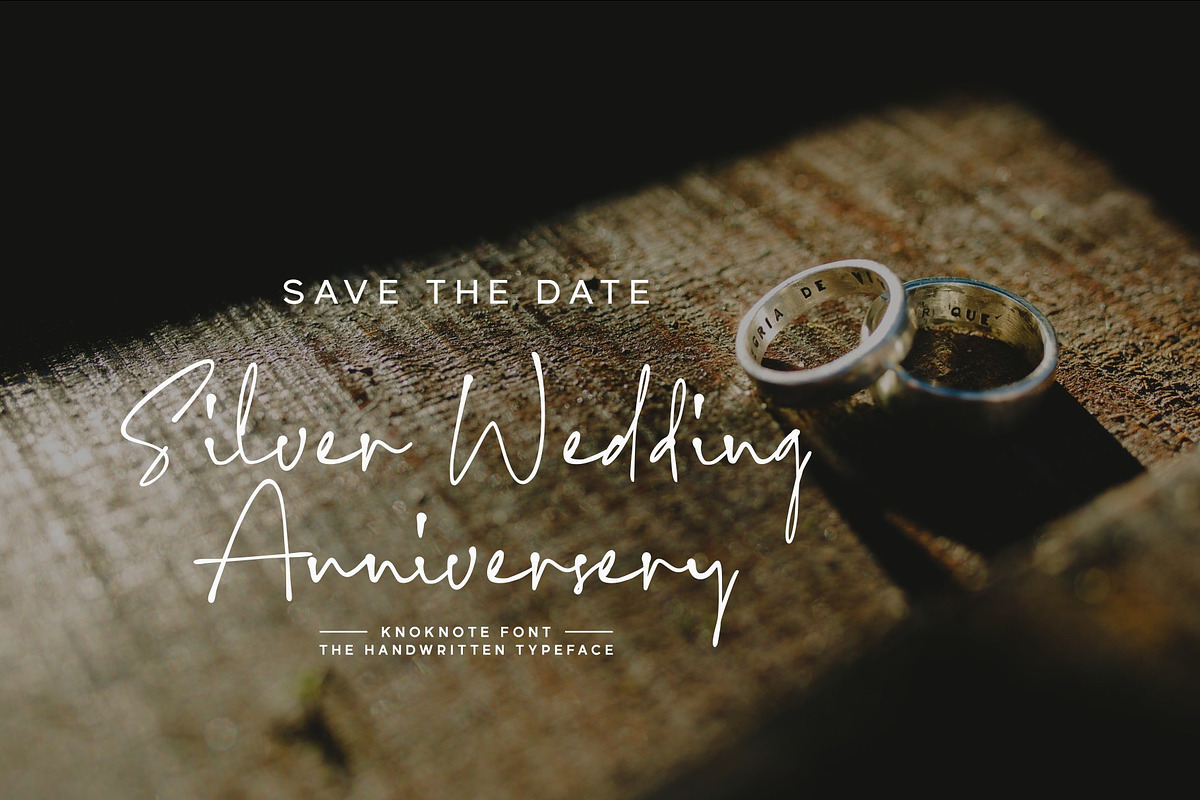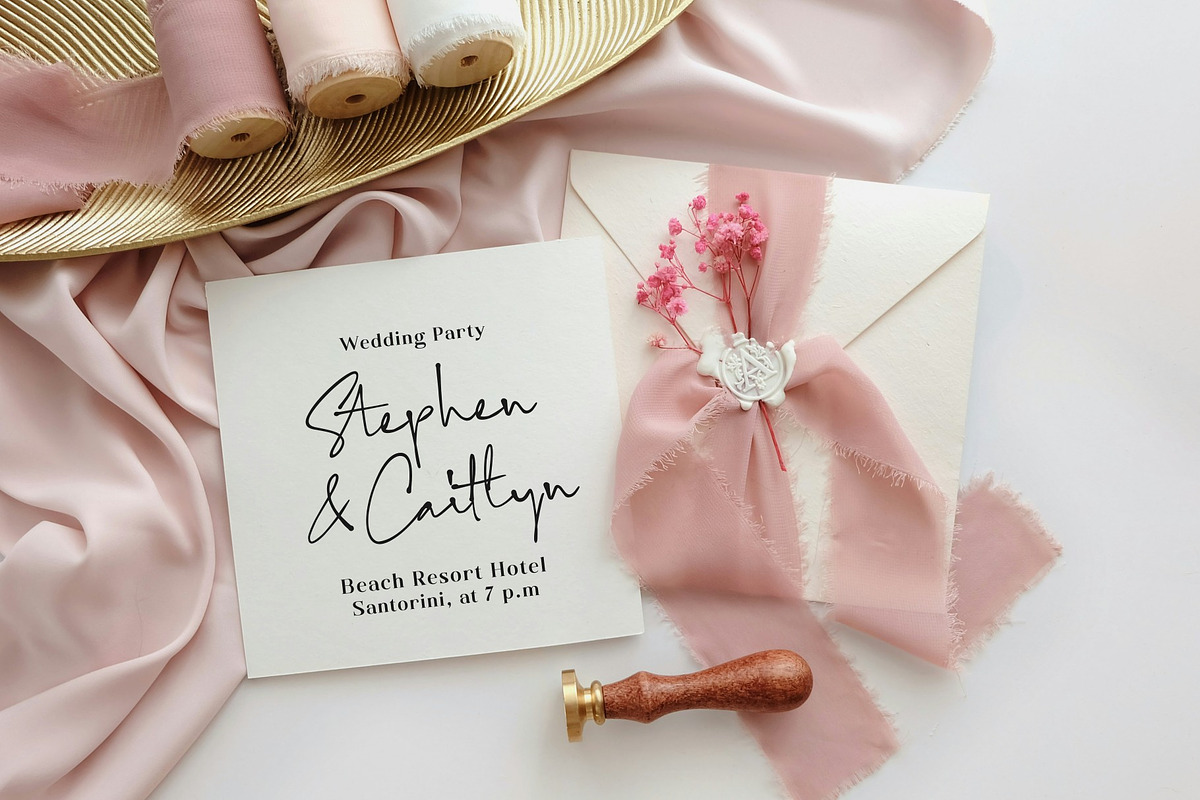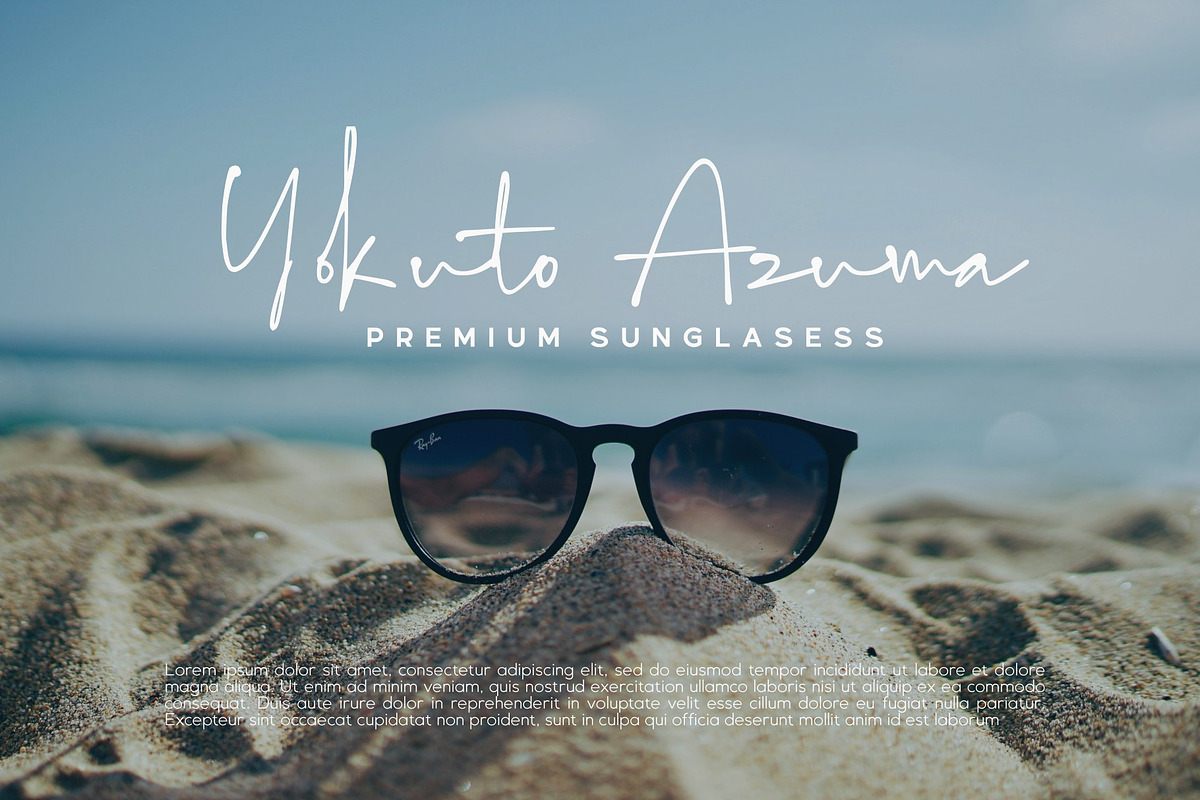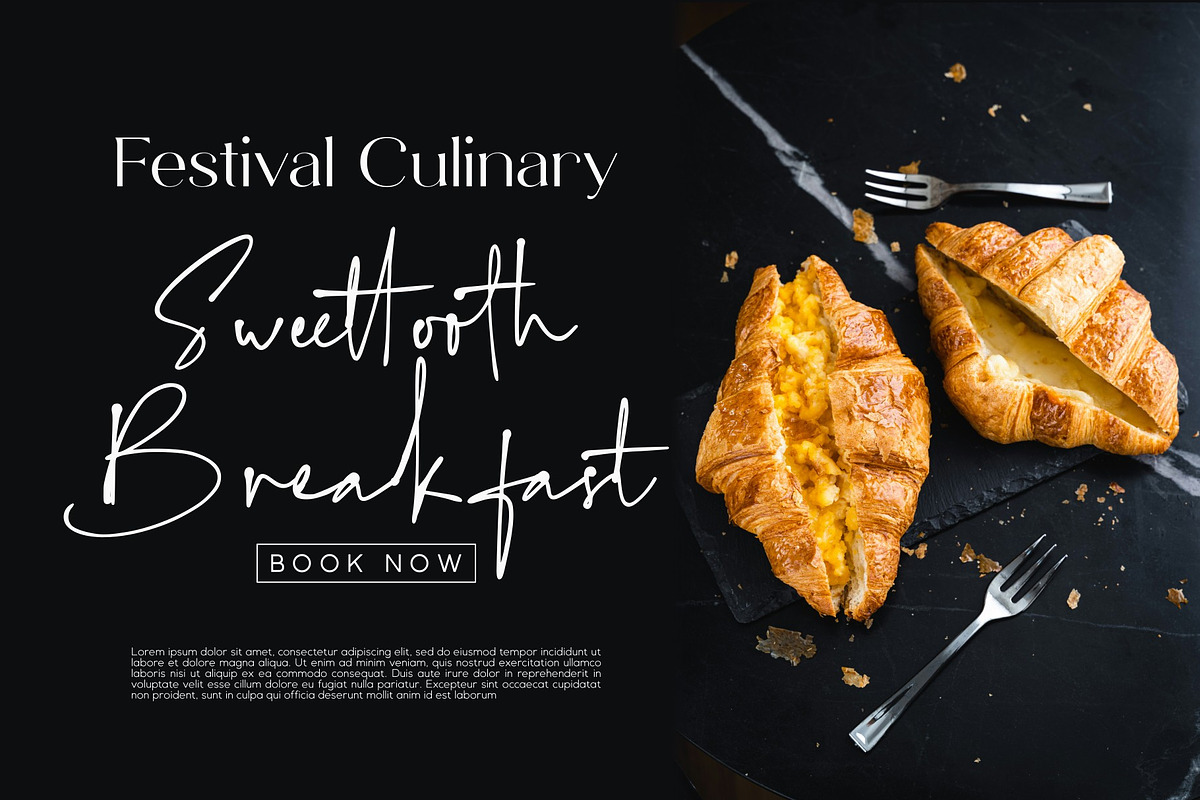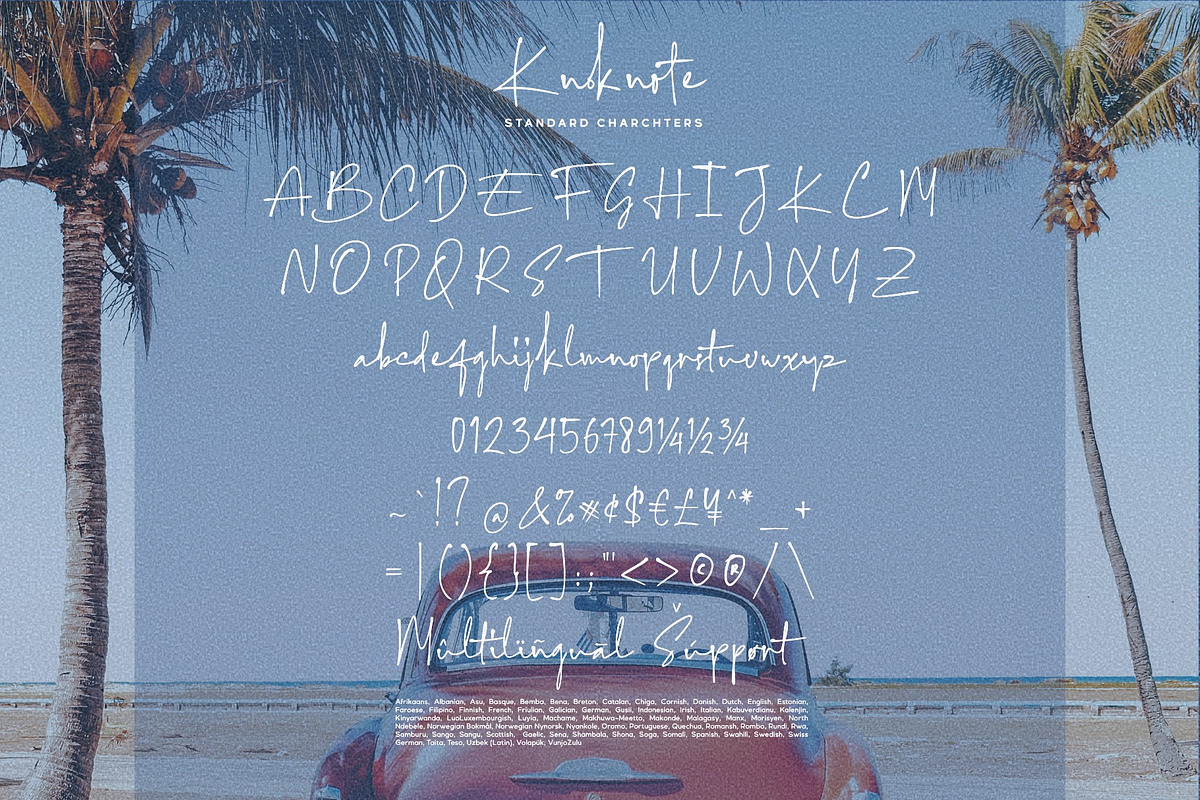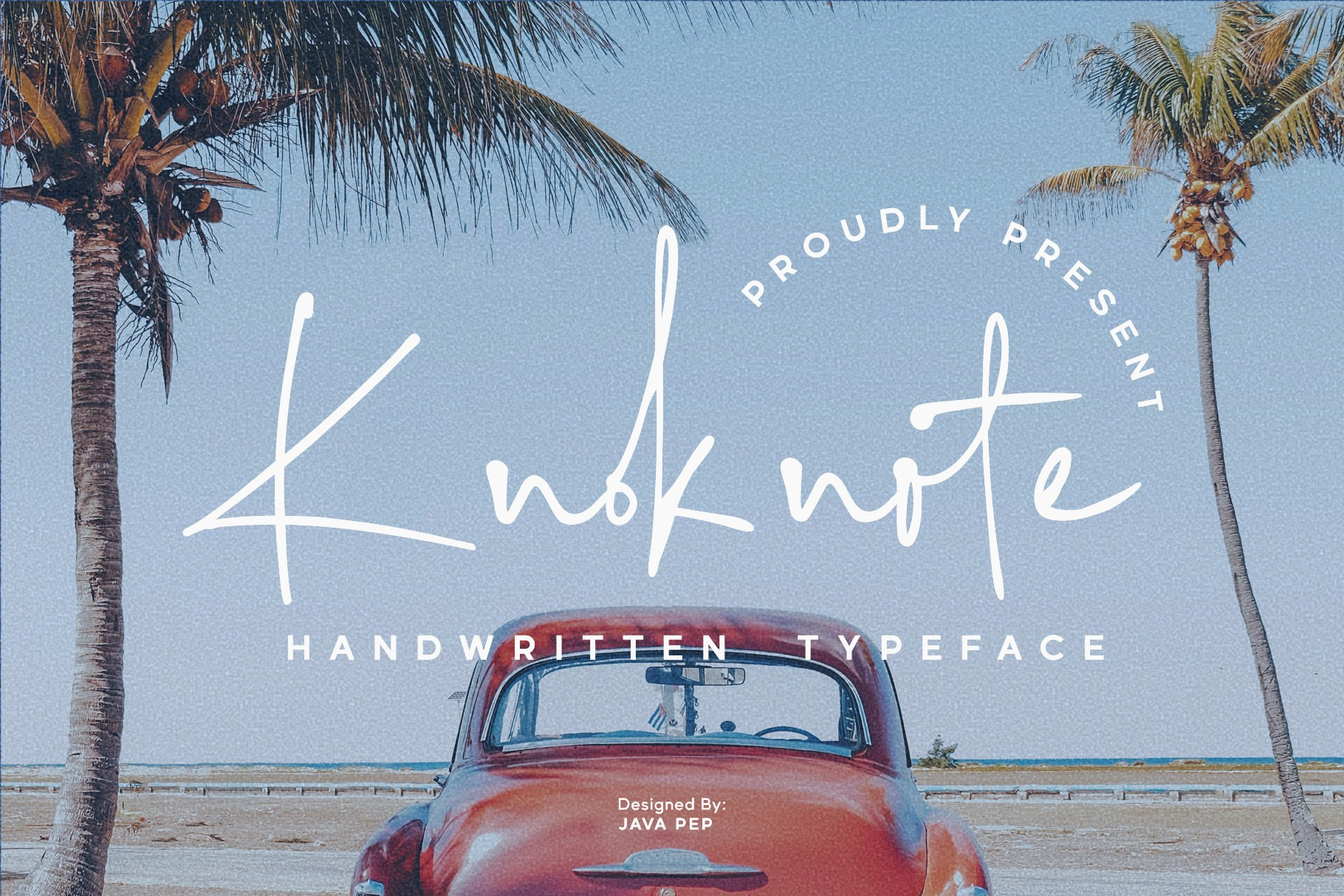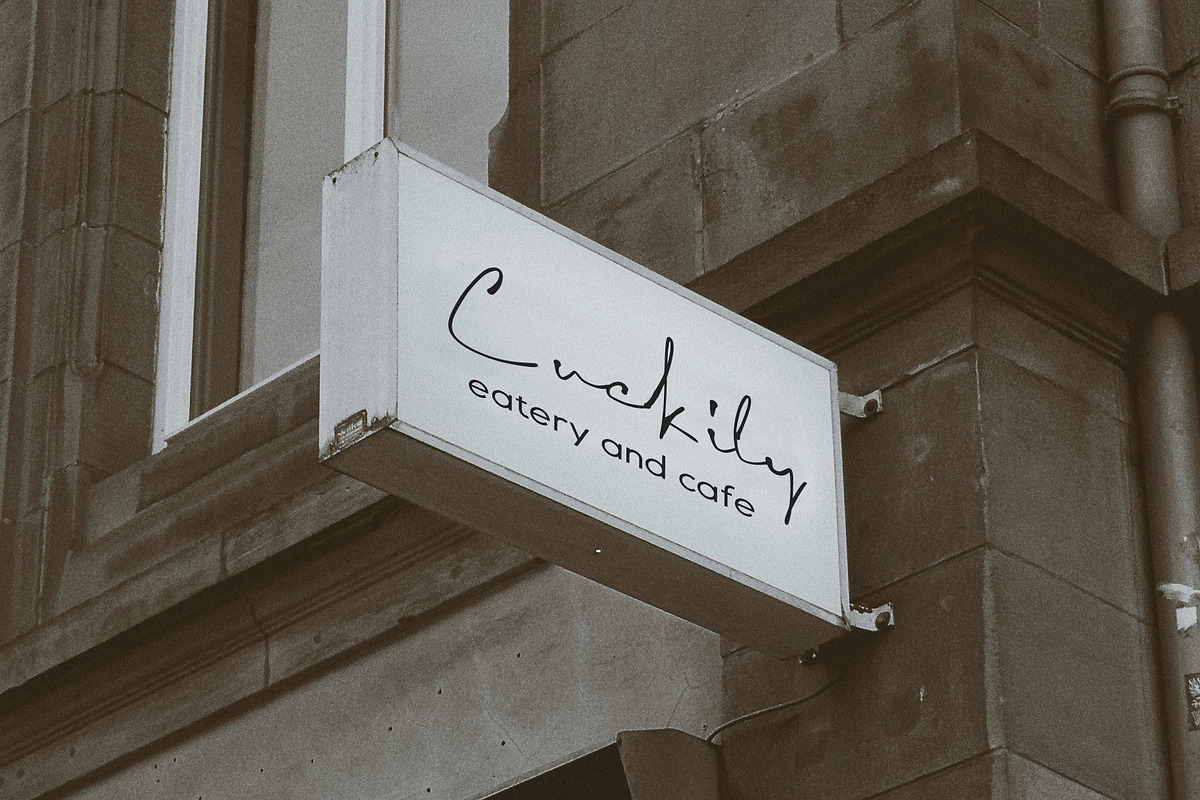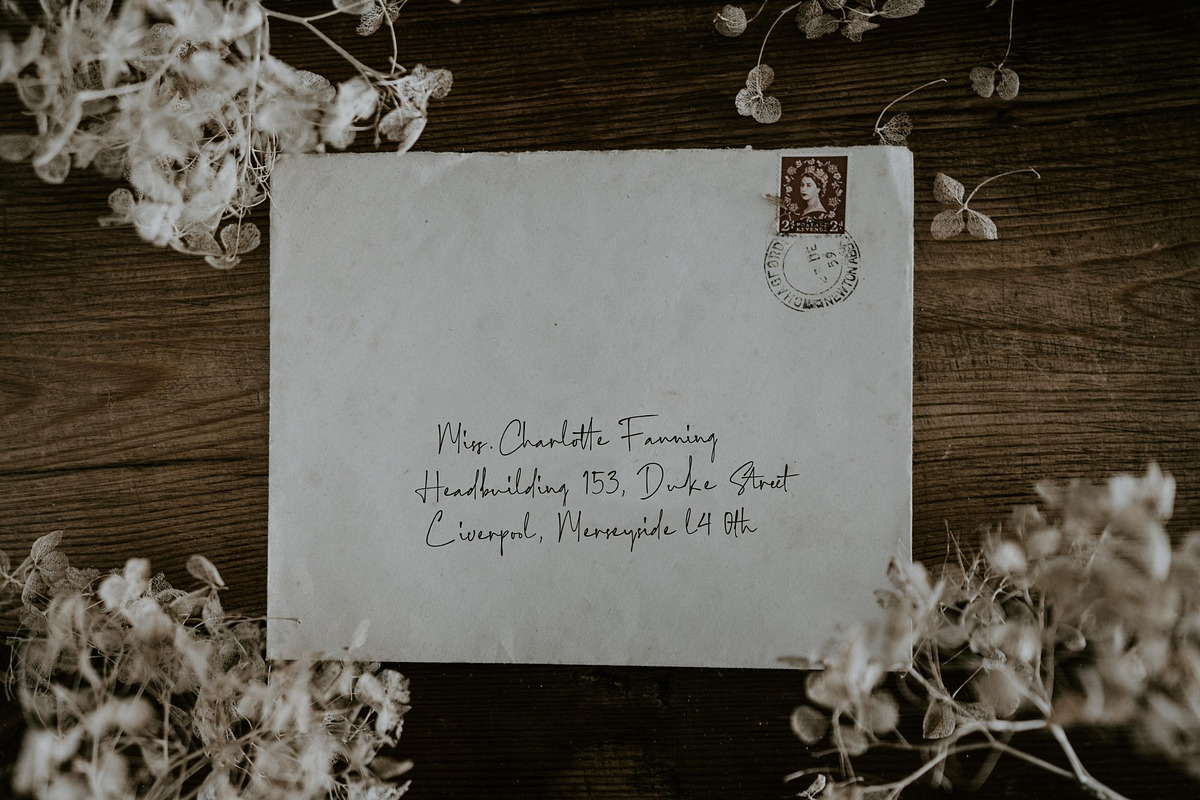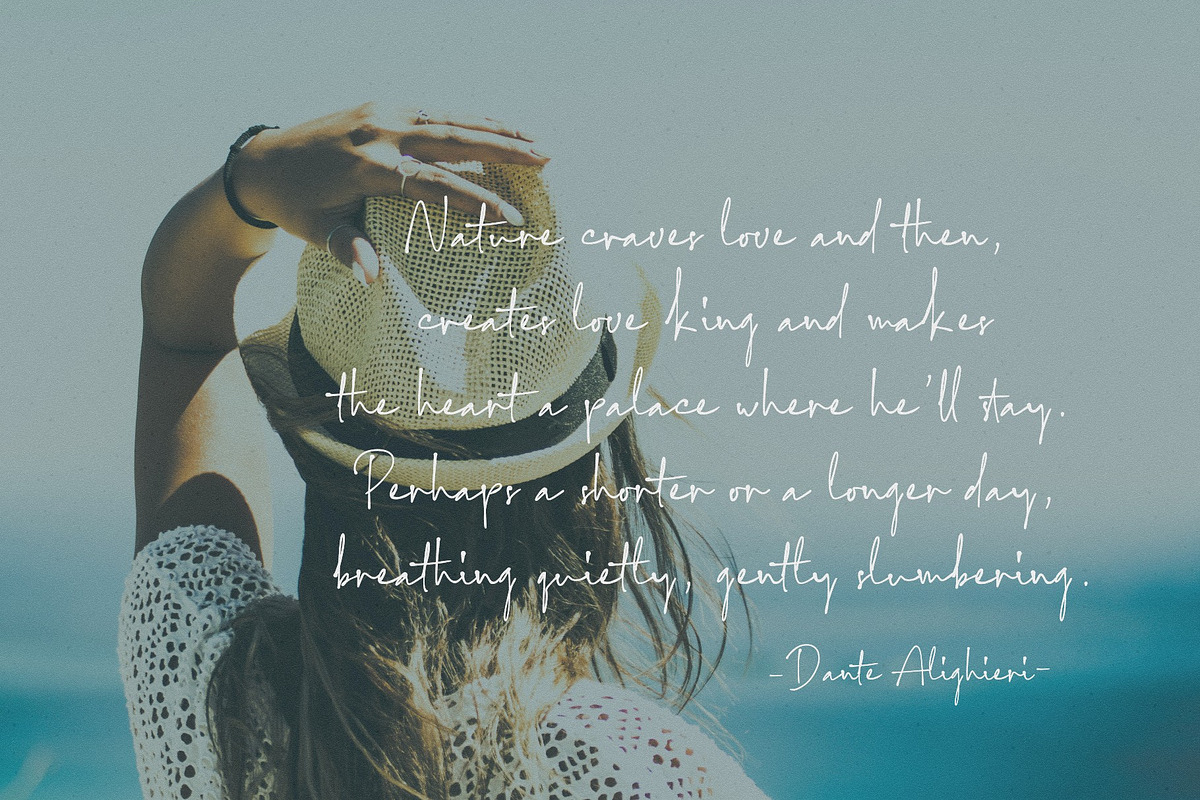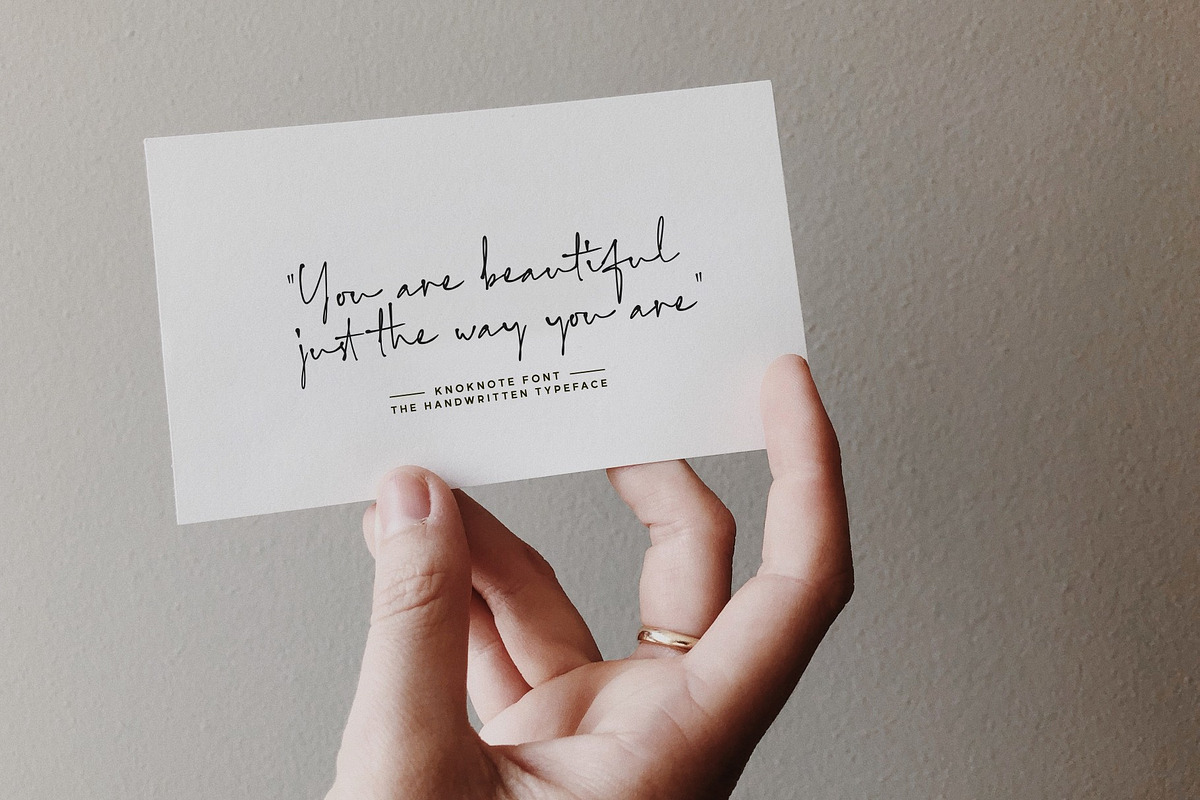
Knoknote / handwritten typeface
Proudly present Knoknote font, the handwritten typeface. This font is built with OpenType features including alternates, contextual alternates, stylistic alternates, and ligature sets to make the Knoknote font in every writing text look like naturally handwritten. *Knoknote font is perfect for quotes, signatures, branding, logotype, greeting cards, poems, sticky notes, etc.
- Uppercase, lowercase, numeral, and punctuation
- Multilingual support, more than 25 languages